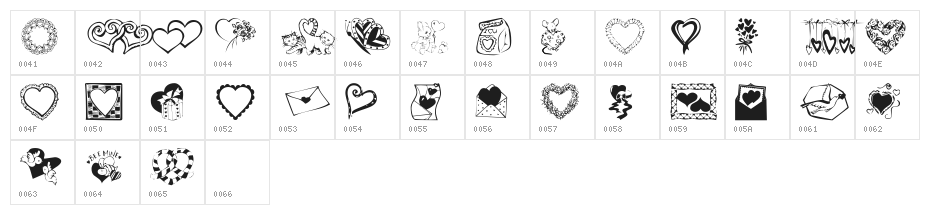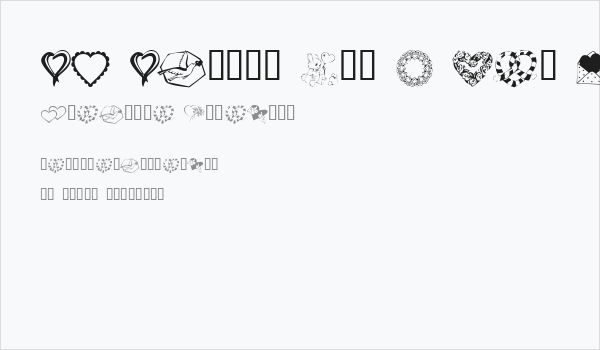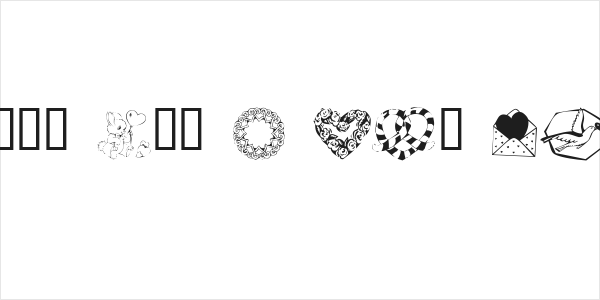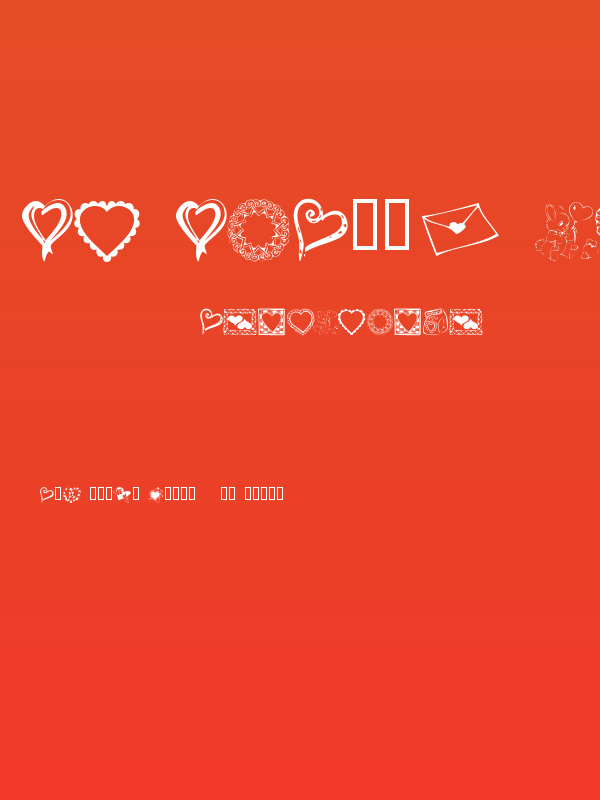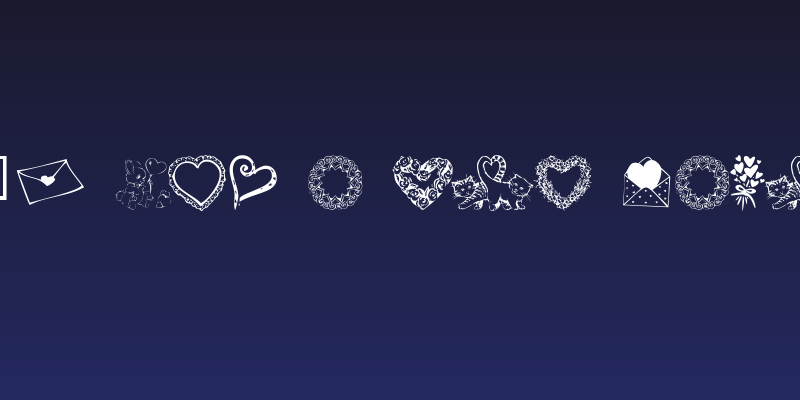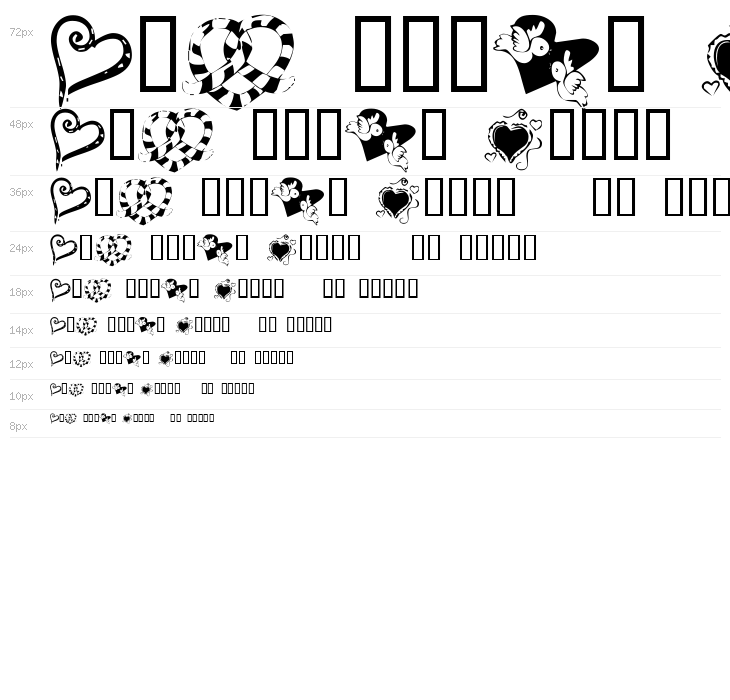
KR Kat's Got A New Valentine Font
KR Kat's Got A New Valentine Description
A decorative dingbat font featuring a variety of hand-drawn ValentineΓ’β¬β’s Day-themed illustrations, including hearts, flowers, envelopes, bees, and romantic motifs. Each character is represented by a unique, playful graphic rather than traditional alphanumeric glyphs.
| Overall Style | Decorative, Playful, Thematic |
| Use Case | Decorative elements, Themed graphics, Craft projects |
| Proposed Projects | Greeting cards, ValentineΓ’β¬β’s Day invitations, scrapbooking, romantic event decorations, themed crafts. |